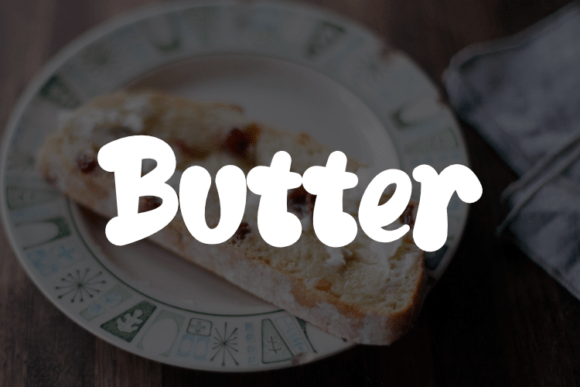
Unleash Your Creativity with the Perfect Font
Have you ever stared at a blank canvas, waiting for the perfect idea to strike? For designers, this moment is a familiar friend – a spark of creativity that sets the wheels turning. And when it comes to giving shape to that idea, the right font can be the game-changer. That’s where the Butter Font comes in, a versatile and adaptable font that’s perfect for crafting the perfect aesthetic for clothing, t-shirts, and a diverse range of other products.
Key Features of Butter Font
- Unique Characteristics: The Butter Font features a unique, rounded design with a smooth, creamy texture, making it perfect for food, bakery, and culinary-related designs.
- Font Style: The font is available in both regular and bold styles, allowing designers to create contrast and emphasis in their designs.
Butter Font Review
I recently had the chance to work with the Butter Font and I must say, it’s a delightful addition to any design project. Here’s what I think works well: ✨
- Unique aesthetic: Butter Font’s playful, handwritten feel adds a touch of whimsy to any text-based design.
- High-quality font files: The font is well-crafted, with crisp lines and clear typography.
- Flexibility: Butter Font comes in a range of weights, making it suitable for a variety of applications, from headings to body text.
However, there are a few limitations I encountered: ⚠️
- Readability in small sizes: While Butter Font looks great at larger sizes, it can become difficult to read when used in smaller text sizes.
- Limited language support: I found that the font doesn’t support as many languages as I would have liked, which can be a drawback for international projects.
Overall, I’m impressed with the Butter Font. It’s a great choice for projects that require a playful, handwritten feel. While it may have some limitations, I believe it’s well worth considering for the right project.
Butter Font is ideal for use in logos, branding materials, and social media graphics. To get the most out of it, experiment with different font sizes and styles to create a unique and eye-catching design. You can also pair it with other fonts to create a visually appealing combination.